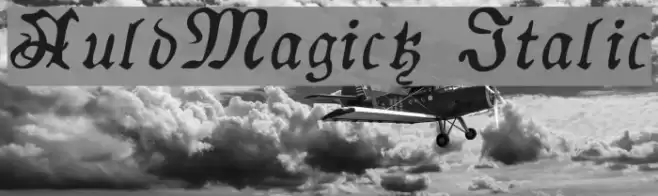
AuldMagick Italic Font
AuldMagick Italic Description
This font features a distinct, ornamental style with a medieval flair, characterized by its flowing, cursive-like strokes and intricate details. The uppercase letters are particularly elaborate, with flourishes and loops that give them a decorative appearance. The lowercase letters maintain a consistent style, with some characters featuring unique, stylized elements that enhance the font's overall aesthetic. The numerals and special characters are designed to match the ornate style of the alphabet, ensuring a cohesive look across all glyphs. This font's italic nature adds to its elegance, making it suitable for projects that require a touch of historical or fantasy-themed design.
An ornate, medieval-inspired italic font with decorative flourishes from Uncategorized fonts.
- Proposed Projects: Ideal for fantasy book covers, historical-themed posters, or medieval event invitations.
- Overall Style: Vintage
- Use Case: Logos, Headlines